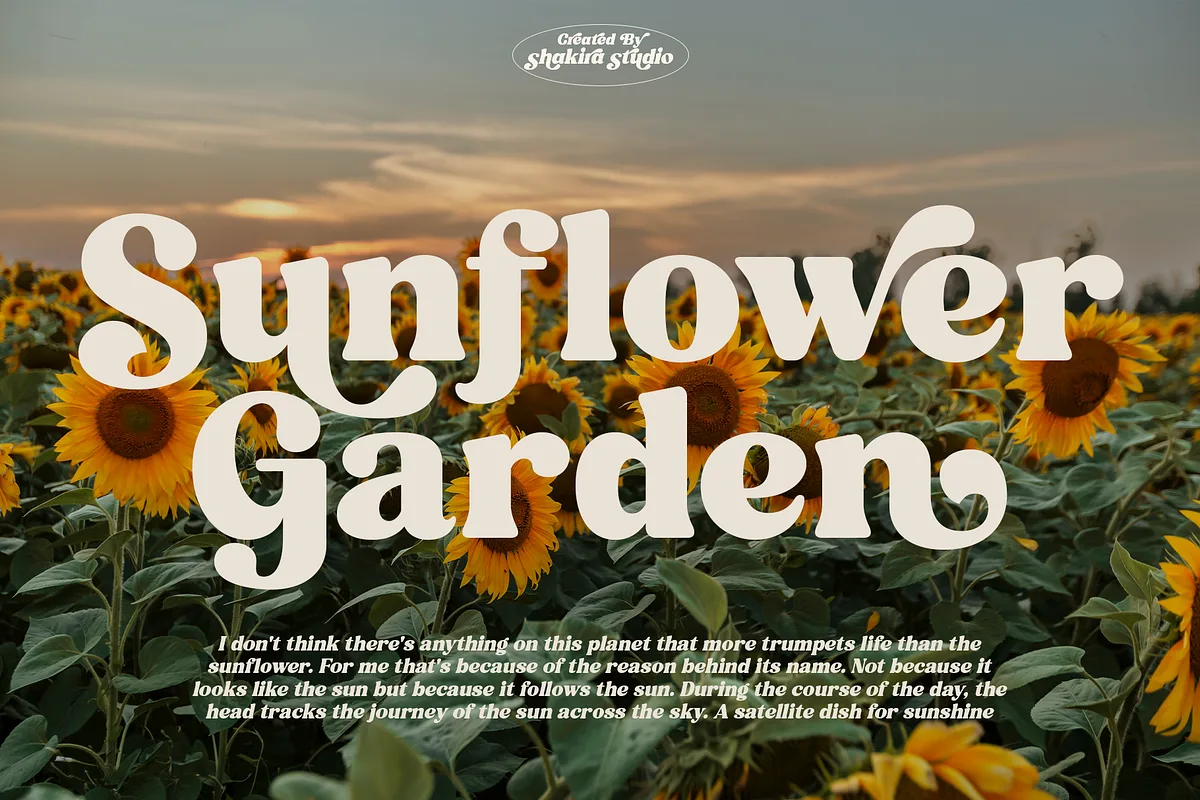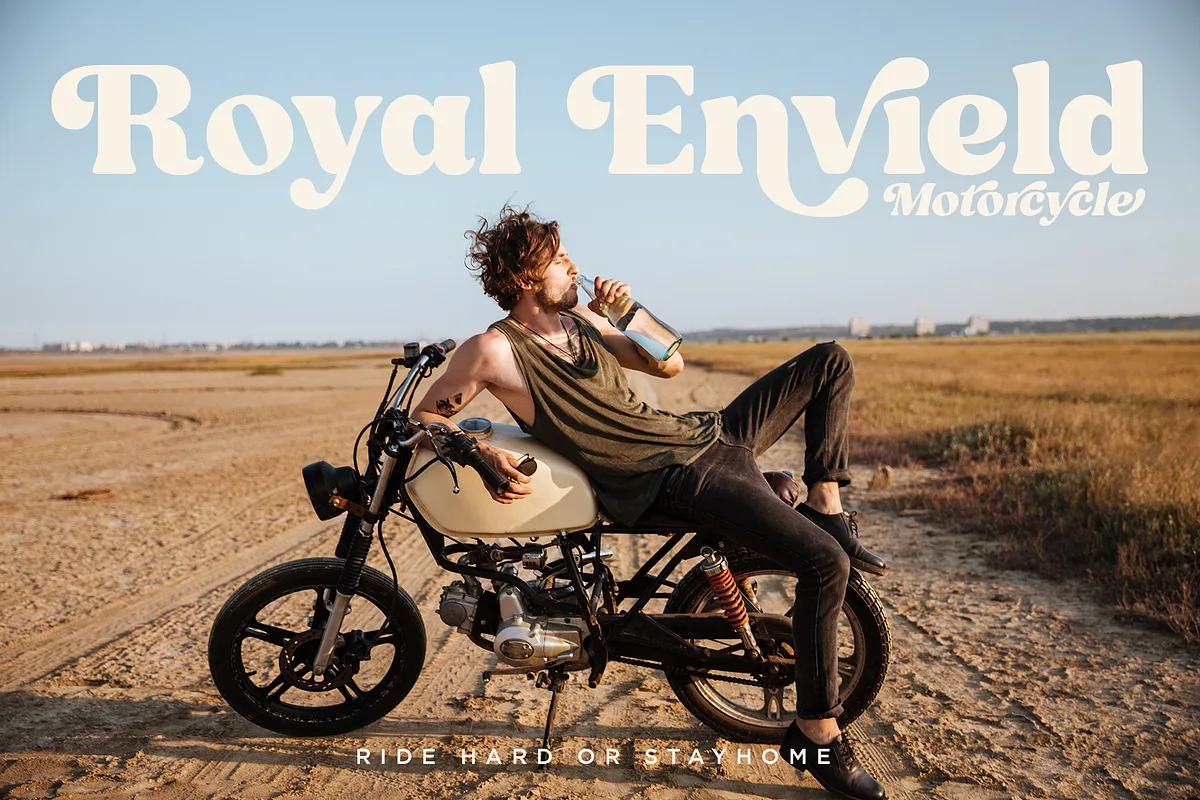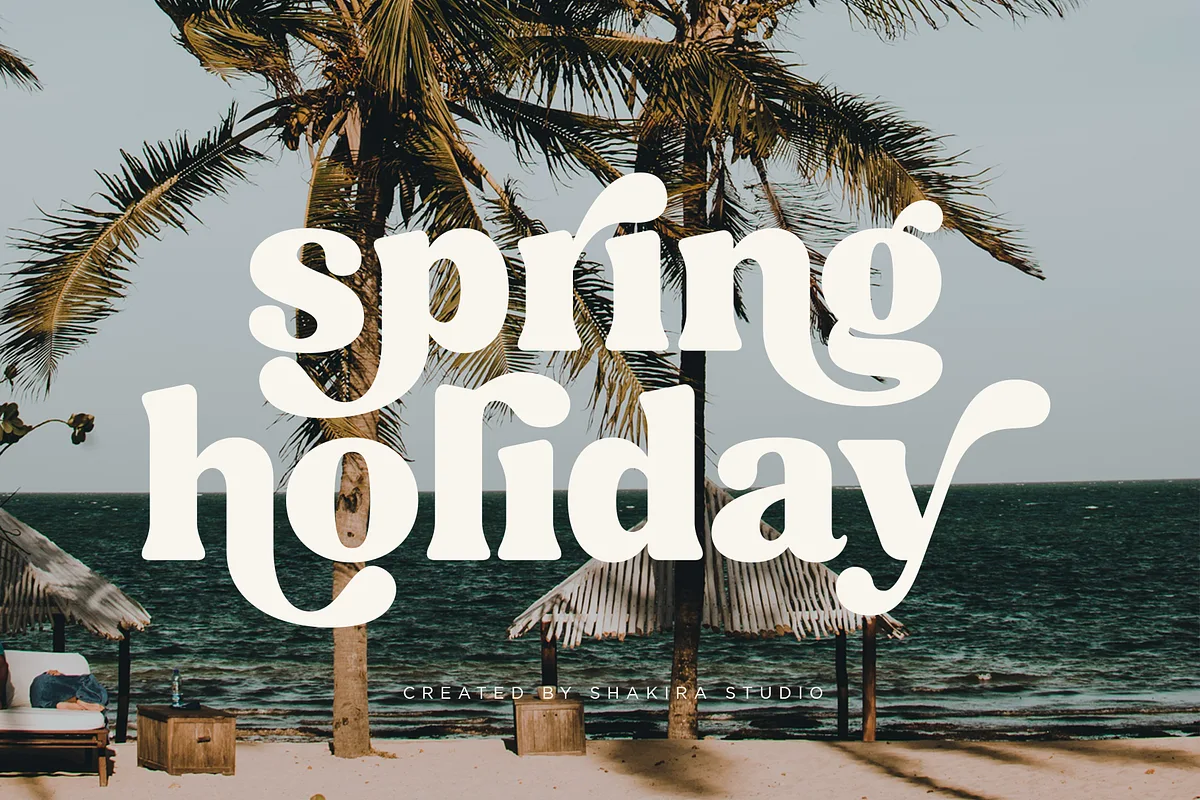
Fresh Mango is a retro serif font. Create bold, gorgeous headlines and elegant designs with a vintage flair. George’s contrasting lines and curved terminals give a sleek, elegant look to logos, holiday cards, wedding invitations, quotes, advertisements, and more.
It has full set of modern uppercase and lowercase letters, numerals, punctuation, also multilingual symbols. It included opentype features like ligature, alternate and many others.
- Regular and Italic
- All Multilingual symbol
- Opentype features (ligature, alternate)
- PUA Encoded Characters